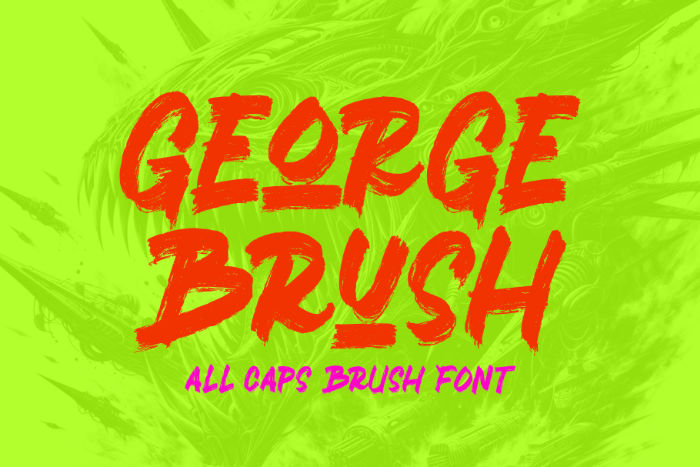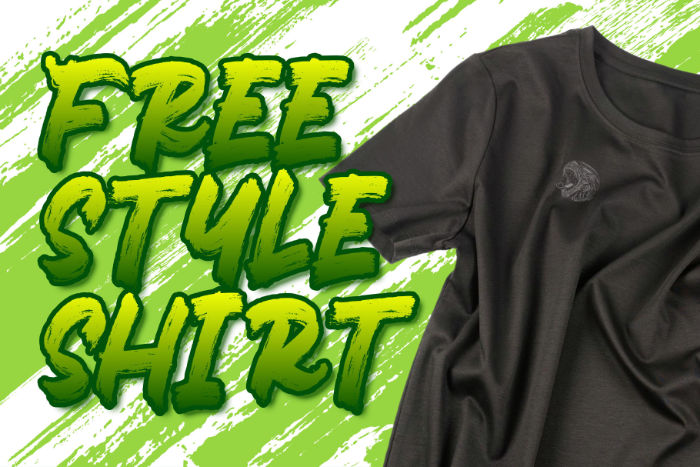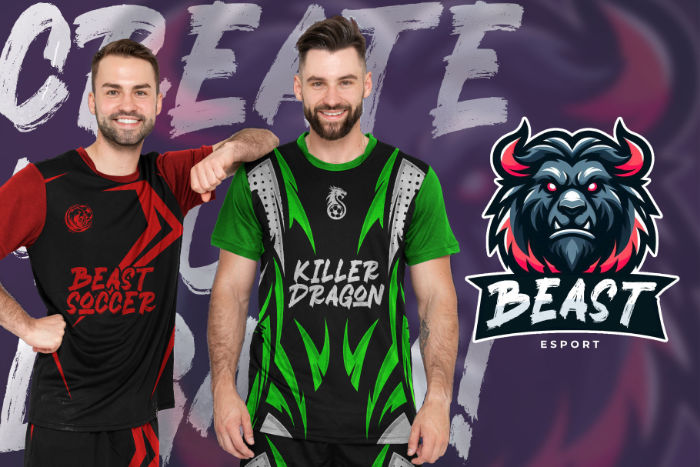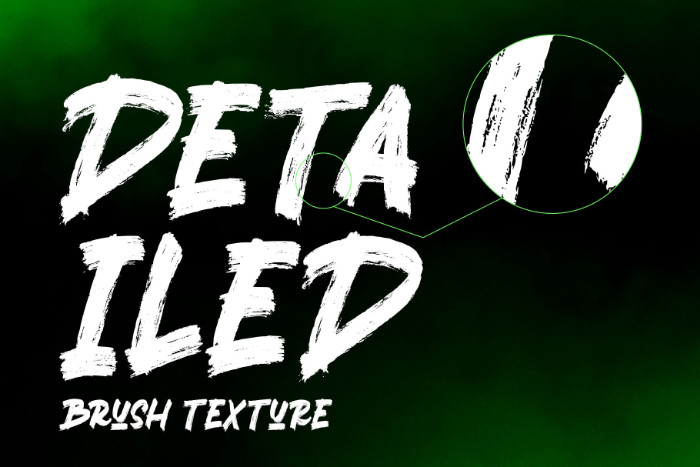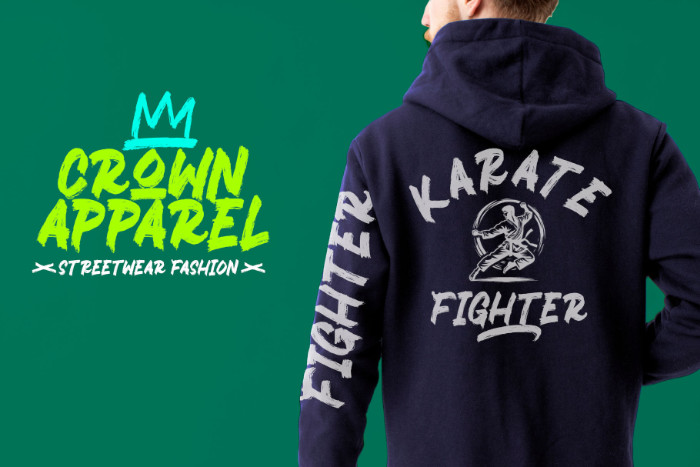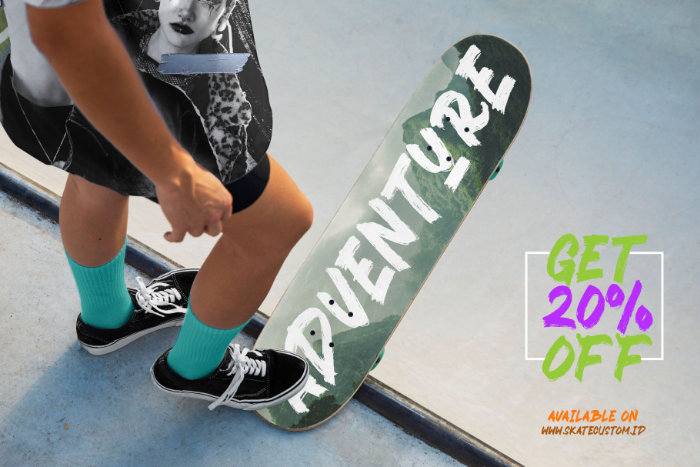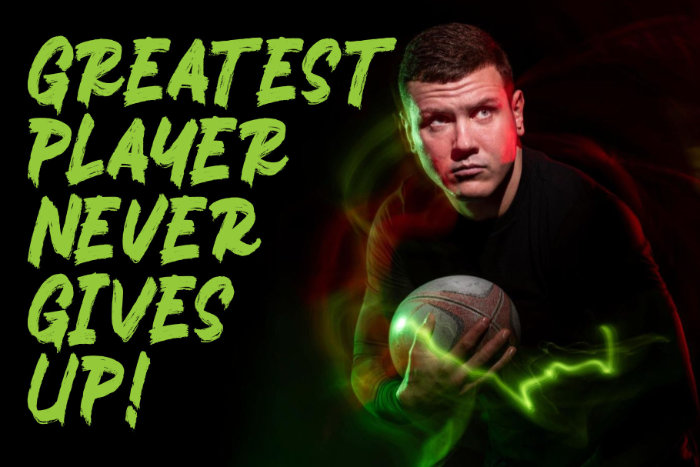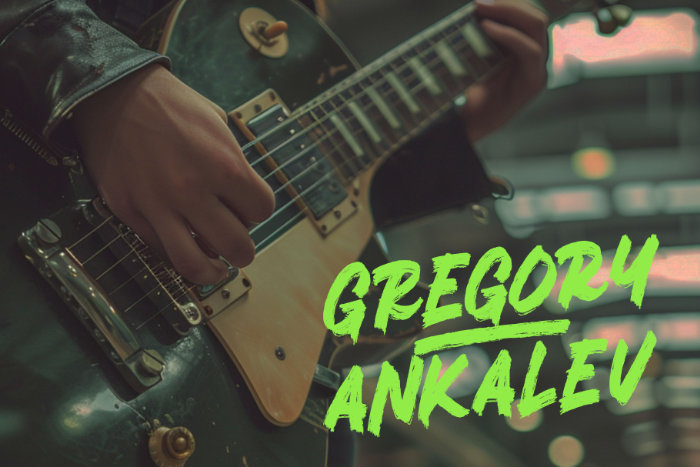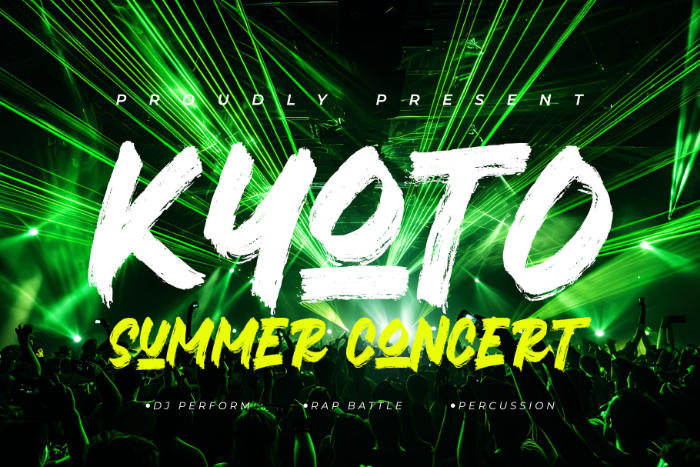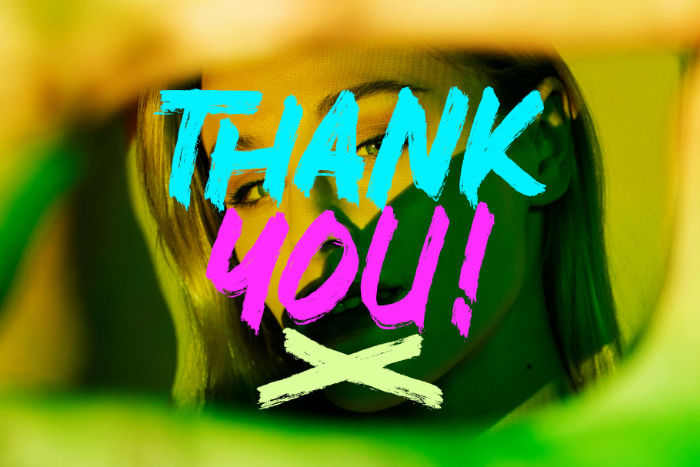
George Brush is a bold, all-caps handwritten brush font designed to bring raw energy and expressive character to your creative projects. With detailed brush textures in every shape, this font captures the authenticity of hand-drawn strokes, making it perfect for designs that demand a dynamic, artistic edge. Whether you’re working on apparel branding, logotypes, posters, or merchandise, George Brush infuses your work with a striking, handcrafted feel.
- Alternates
- Multilingual Support